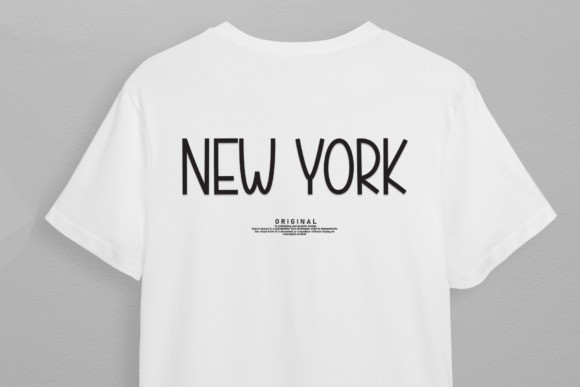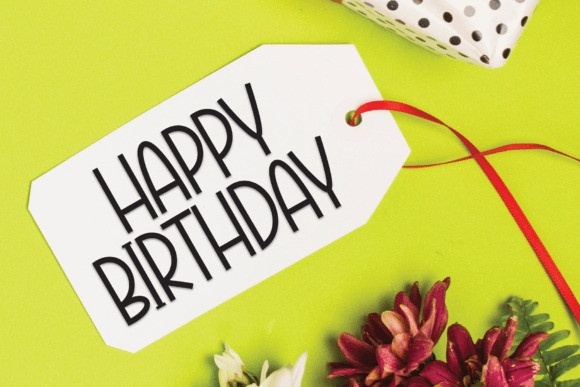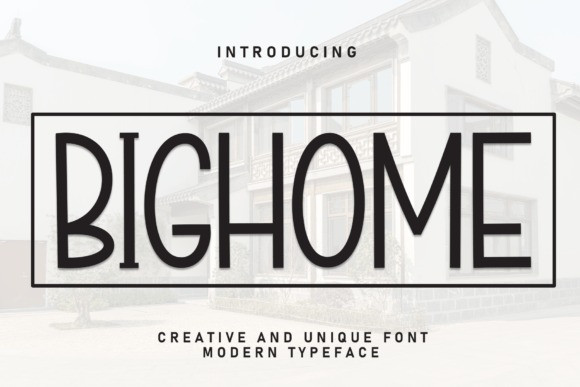
Bighome Font
Bighome Font is a neat and casual sans-serif font that combines simplicity with a touch of warmth. With clean lines and balanced proportions, it exudes a friendly and approachable vibe. Perfect for various design projects, Bighome brings a modern and versatile style to your typography repertoire.